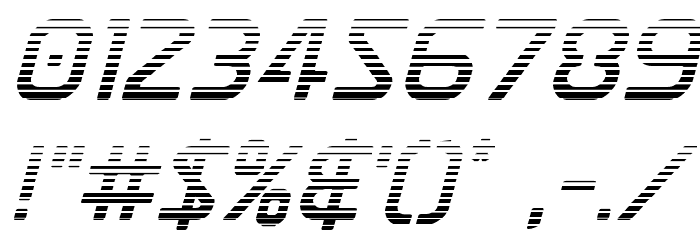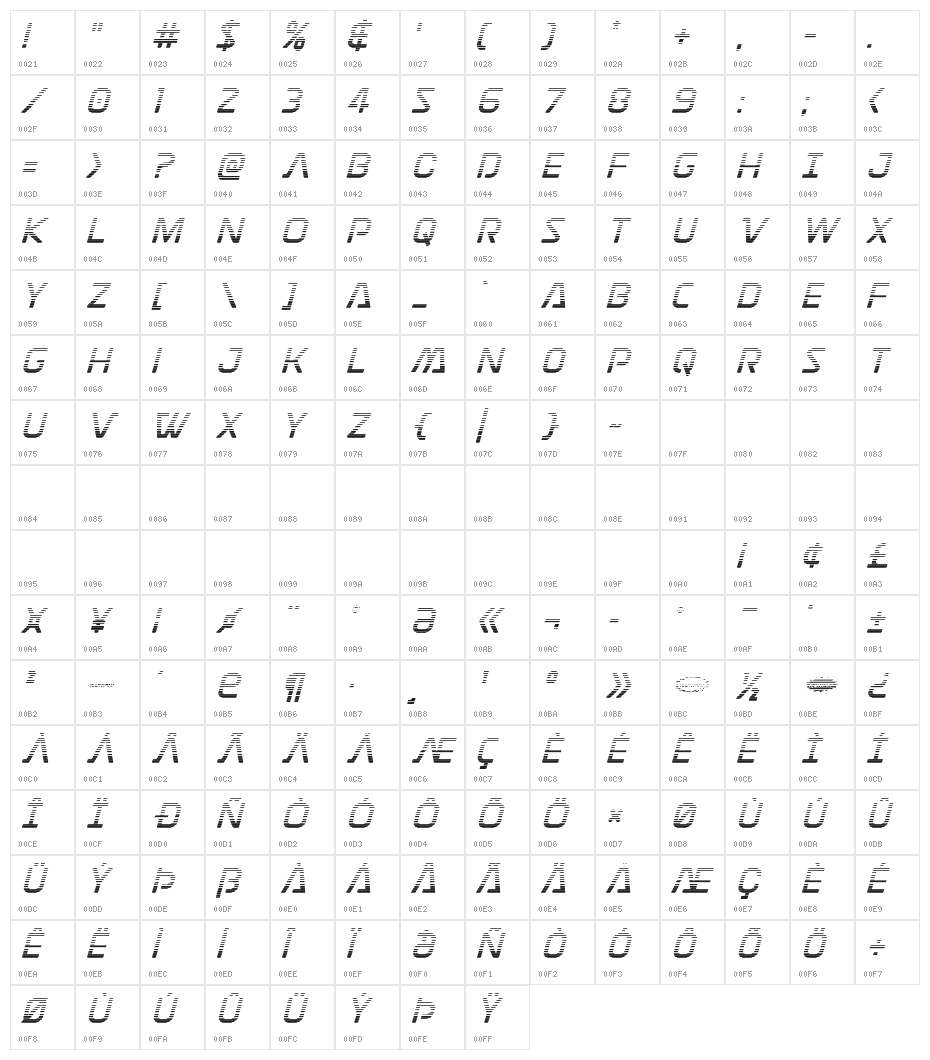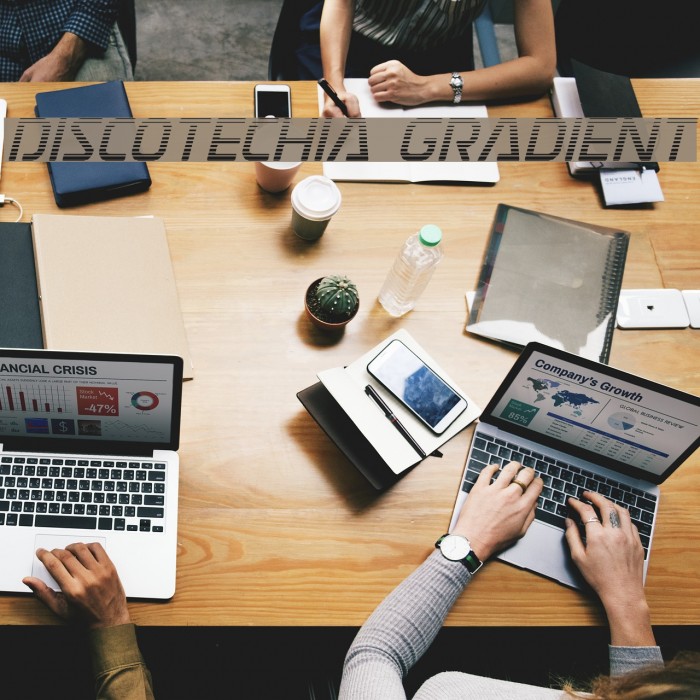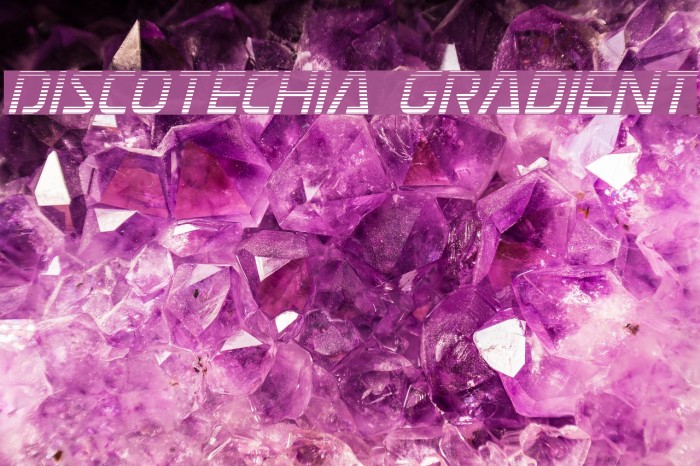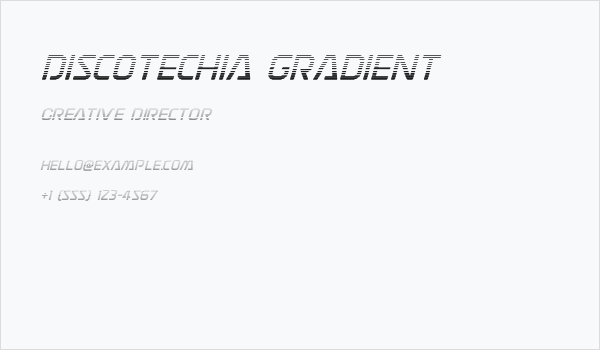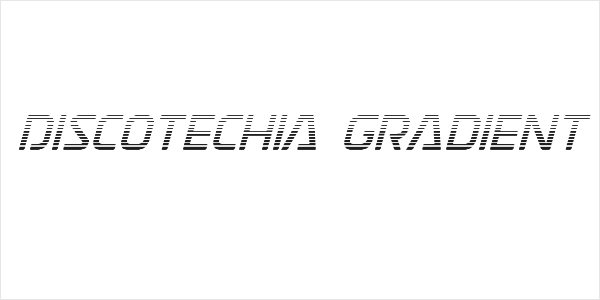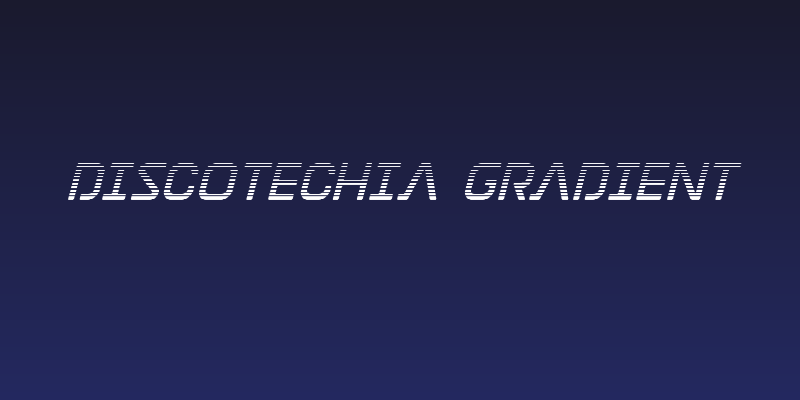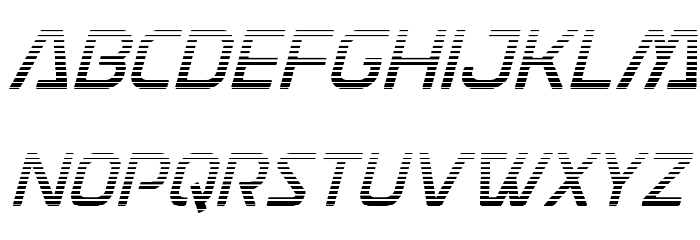
Discotechia Gradient Font
Discotechia Gradient Description
This font features a dynamic and futuristic design with a distinctive striped pattern running through each character. The uppercase and lowercase letters, as well as numbers and special characters, are all designed with a consistent slanted orientation, giving a sense of motion and energy. The font's bold and geometric structure is complemented by its unique gradient effect, which adds depth and a modern touch. The spacing between characters is tight, enhancing the compact and cohesive appearance of the text. This font is ideal for projects that require a contemporary and eye-catching aesthetic.
| Proposed Projects | Ideal for music event posters, tech company logos, futuristic branding, and digital media graphics. |